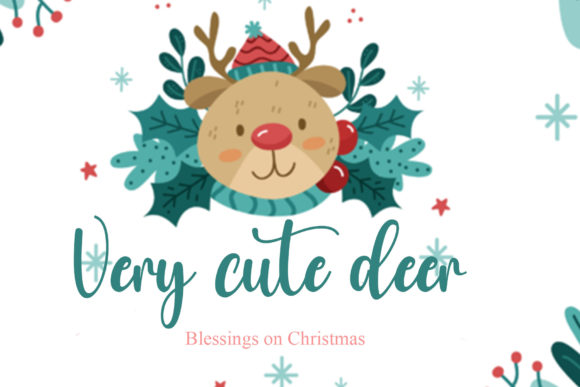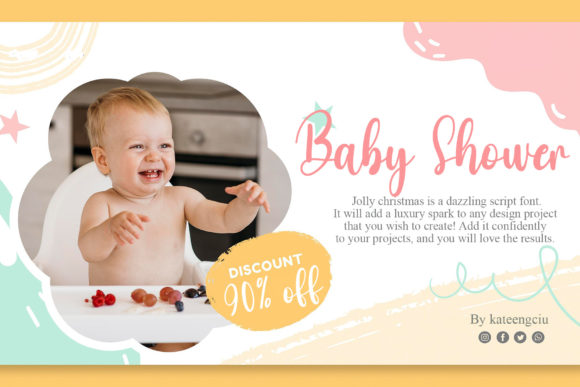
Vintage Font
db-ku.com - Script & Handwritten -- Vintage is a romantic and sweet calligraphy typeface with characters that dance along the baseline. It has a casual yet elegant feel.